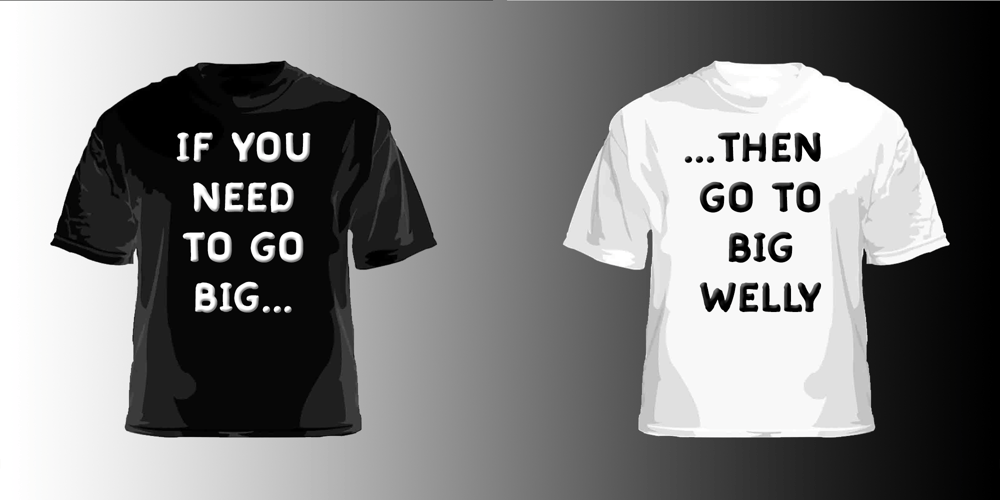
Big Welly Font Family was designed by Peter Peter Cubbin and published by Inclusive Fonts. Big Welly contains 1 styles and family package options. Big Welly…in the United Kingdom we have a very British phrase which is ‘Give it some Welly (Wellie)’ this is often shouted to a person as encouragement or criticism, it asks for more effort to be put into whatever he or she is doing. The saying comes from an informal name for Wellington Boots; Wellies – named after The Duke of Wellington.Hence, ‘Big Welly’ the font, this font is bold and big on the one hand and handwritten on the other. These two attributes make this font ideal as a poster font or t-shirt font for instance to make your message really stand out. So, if you need a bit of added oomph in your design – look no further than ‘Big Welly’.